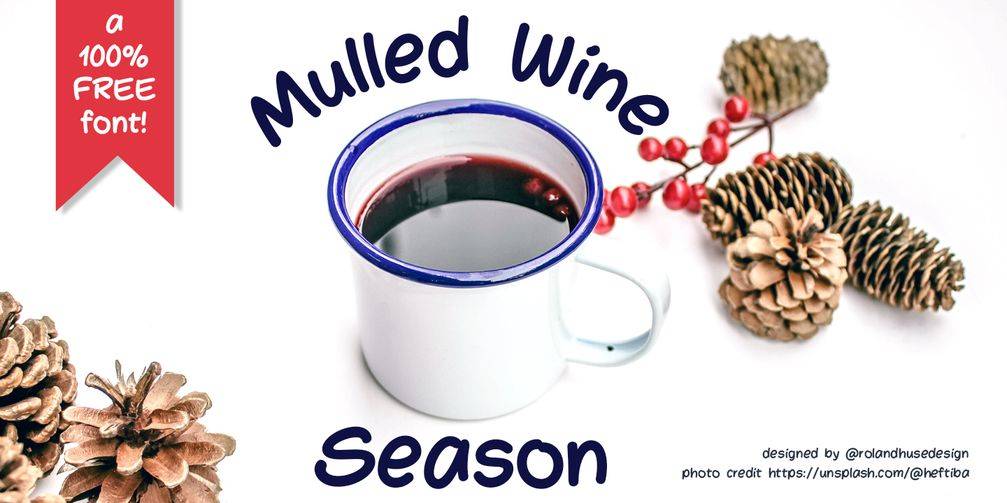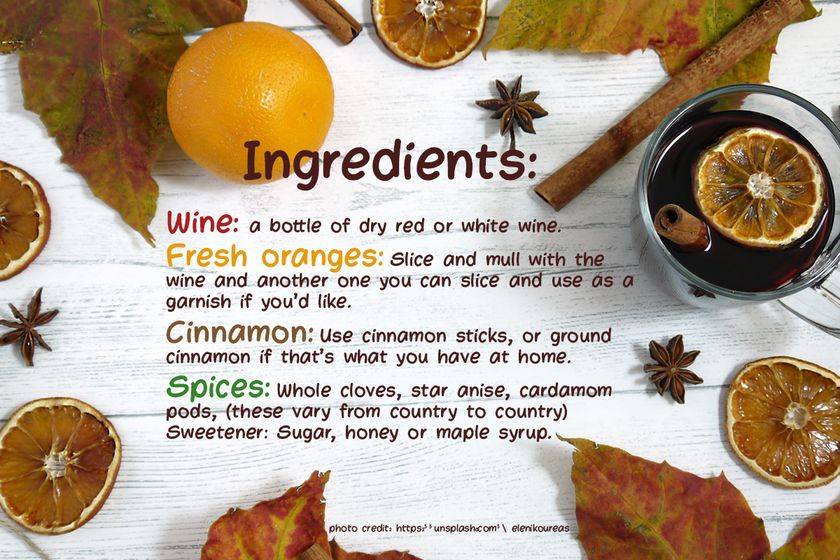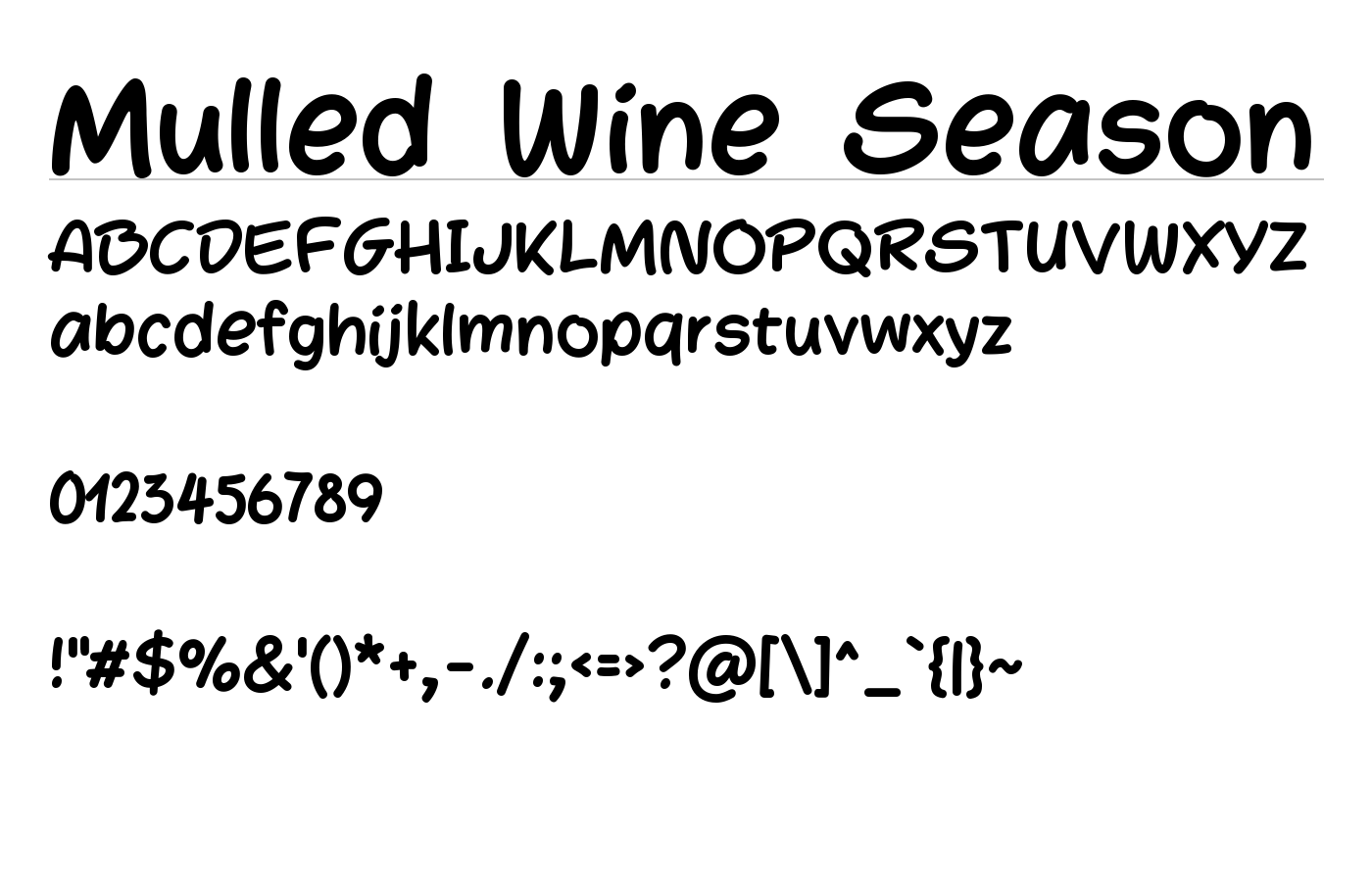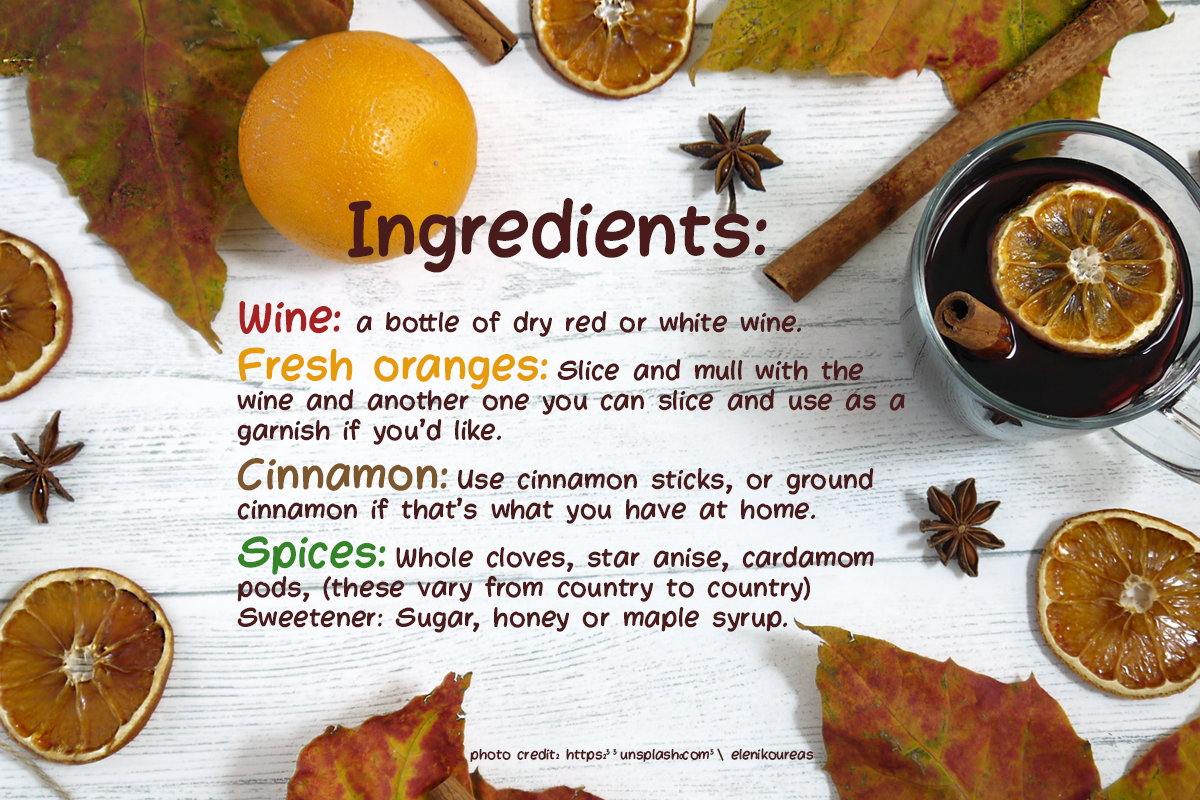
Mulled Wine Season is a friendly and casual handwritten sans serif font with a medium weight and a natural, playful flow. Its rounded, slightly uneven letterforms give it a warm and approachable feel, making it perfect for informal or creative designs like greeting cards, children’s books, or lifestyle branding. This font works well in headlines and short texts where a relaxed and personal touch is desired.
Mulled Wine Season
About Mulled Wine Season
| Font family | Mulled Wine Season |
| Designer | Roland Hüse |